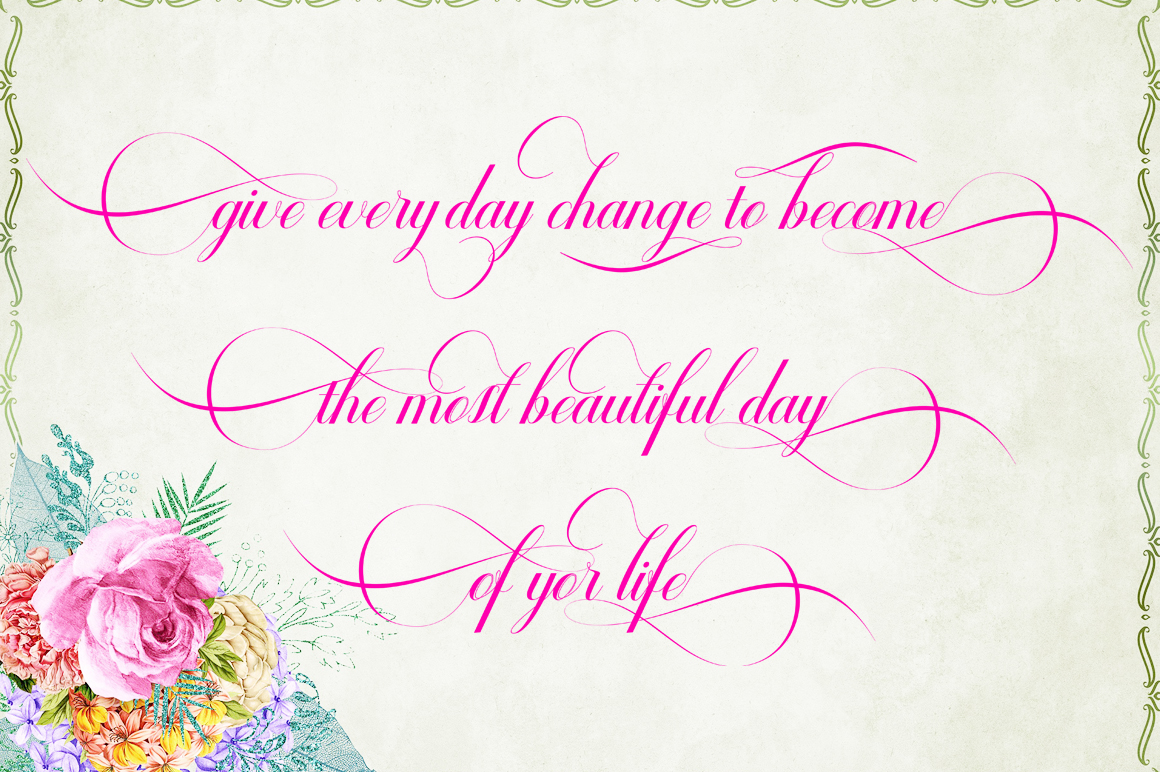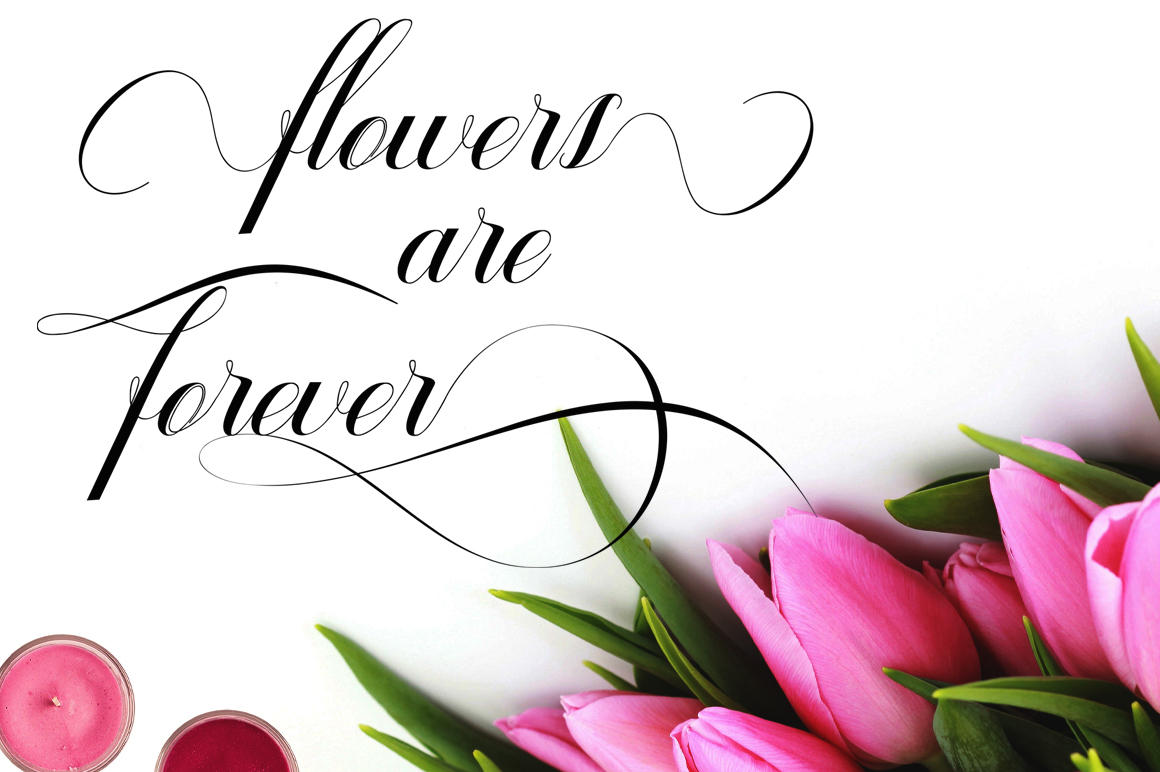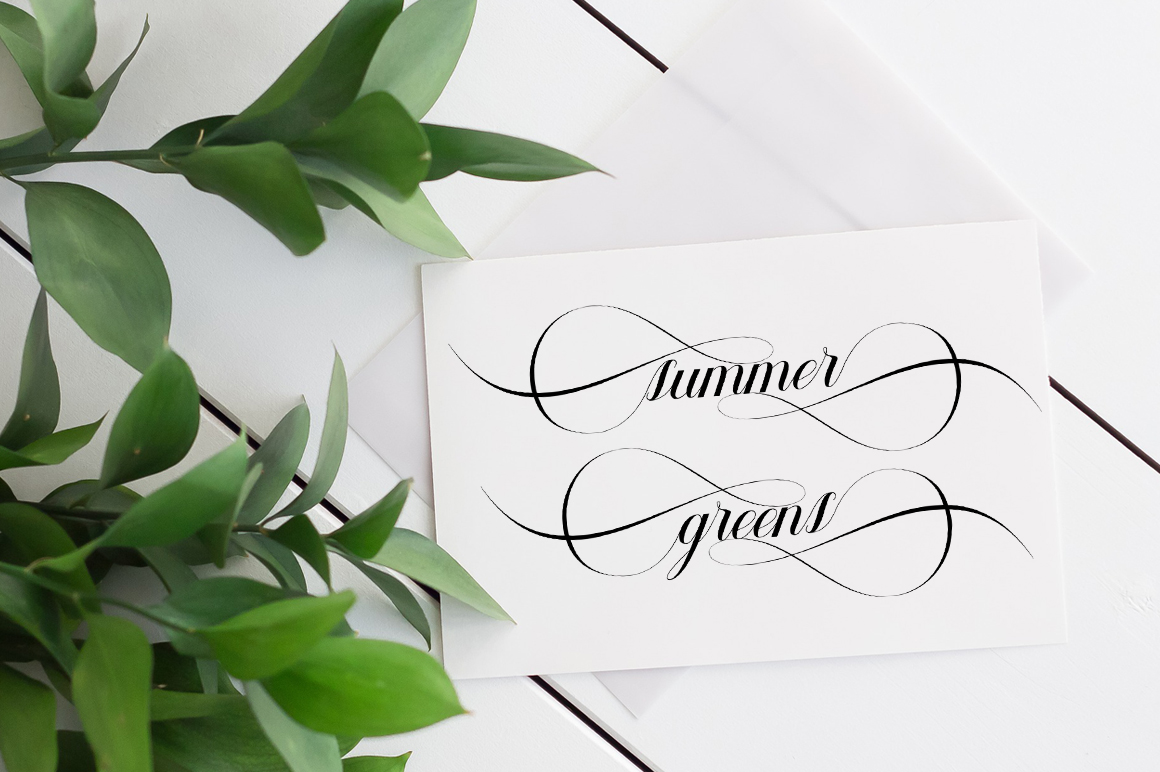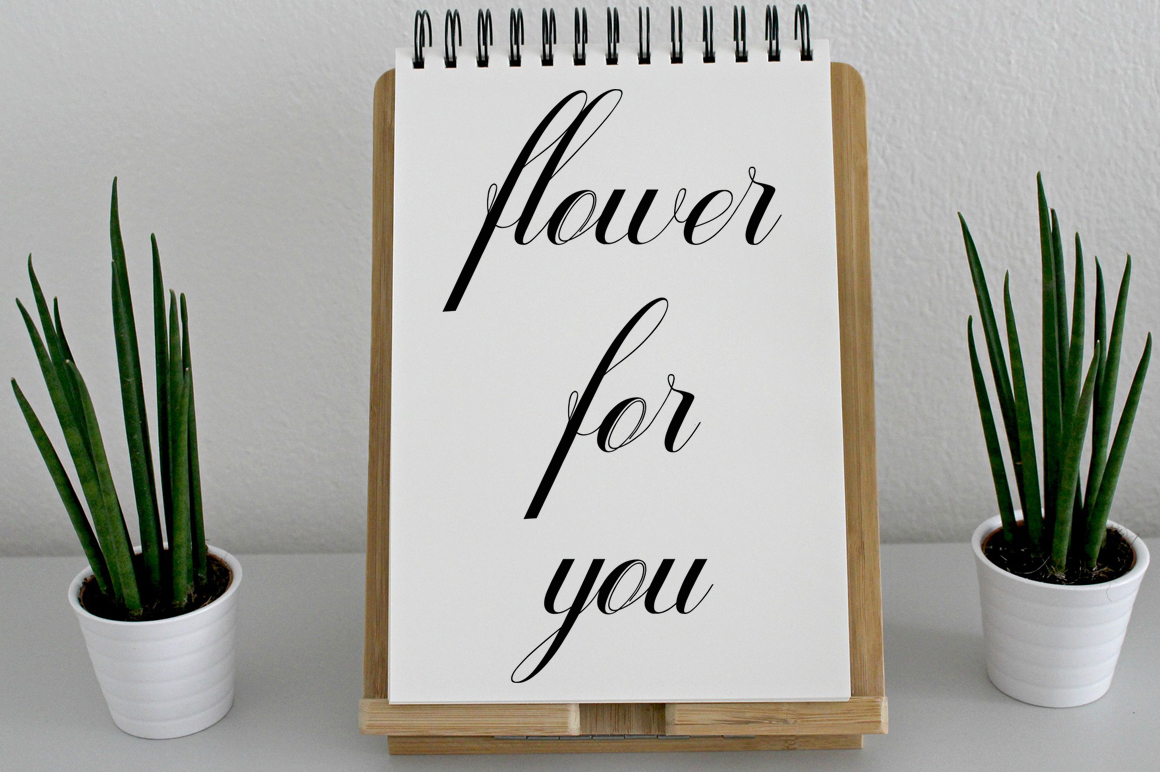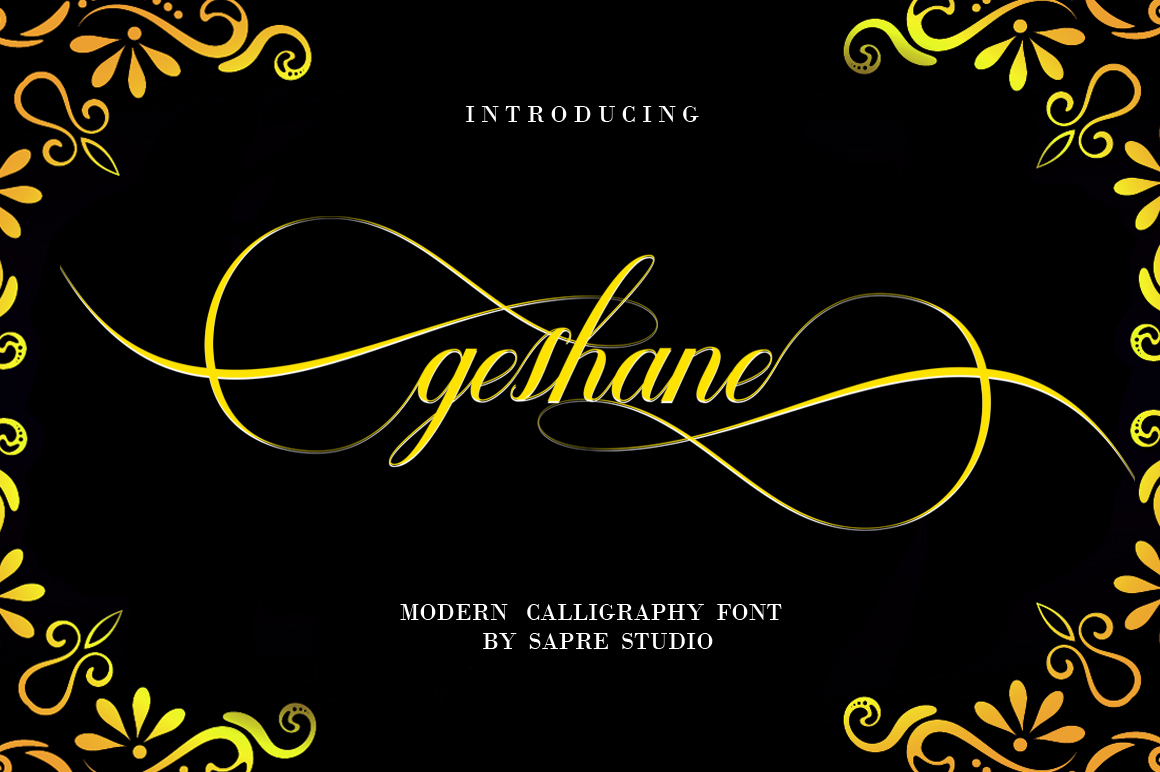
geshaneScript Font
geshane Script is a new elegant font with wide kerning perfec for formal occasions regular version. geshane looks beautiful in wedding invitations, thank you cards, quotes, greeting cards, logos, business cards, and more. Perfect for use in ink or watercolors. Includes initial and terminal letters, alternative and multiple language support.